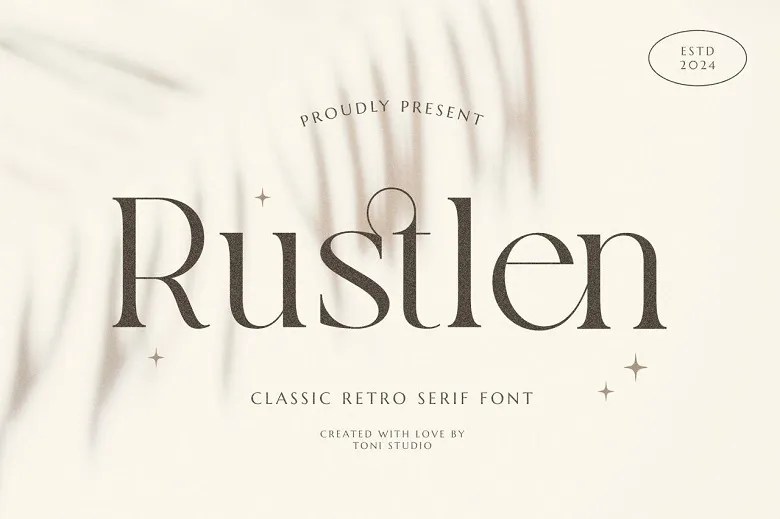
Rustlen Font
Rustlen is a classy retro serif font crafted by ToniStudio, designed to infuse personality and character into your designs. With its unique blend of vintage charm and timeless elegance, Rustlen offers a distinct style that stands out in both modern and classic design projects. This font is perfect for creating chic branding work that requires a touch of originality, making it an ideal choice for designers looking to bring a bit of retro flair to their creations.
The font’s carefully crafted details give it a stylish and refined look, making it suitable for a wide range of applications. Whether you’re working on a logo, a website header, or any other branding material, Rustlen provides a versatile solution that can adapt to various design needs. The font’s retro appeal is complemented by its modern sensibility, allowing it to seamlessly integrate into contemporary projects while maintaining its unique character.
One of Rustlen’s standout features is the variety of options and binders it offers, enabling you to create highly creative and distinctive designs. This flexibility makes Rustlen particularly effective for crafting unique logos, eye-catching website headers, and other key branding elements that need to leave a lasting impression. The font’s timeless quality ensures that it will remain relevant across different design trends, providing a reliable and stylish option for your branding toolkit.